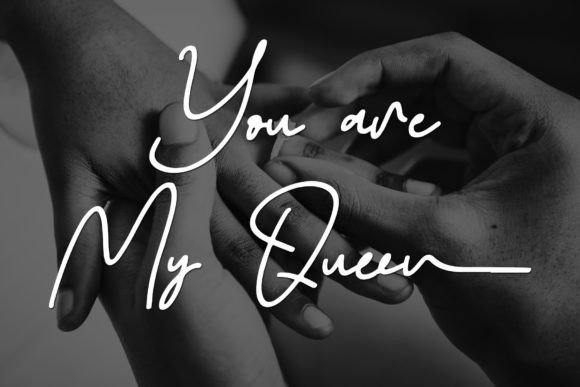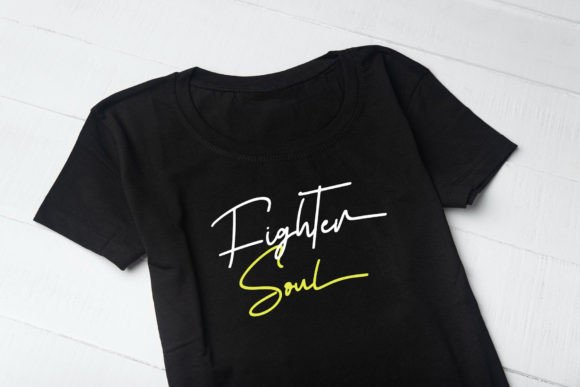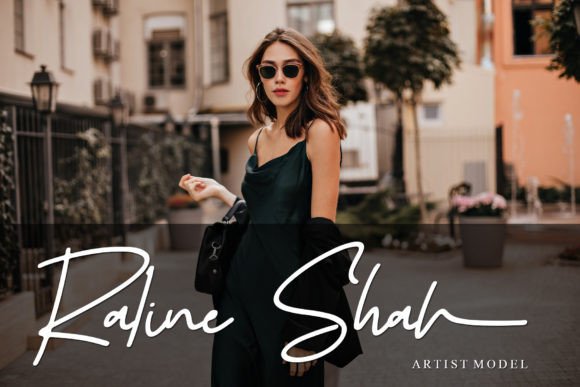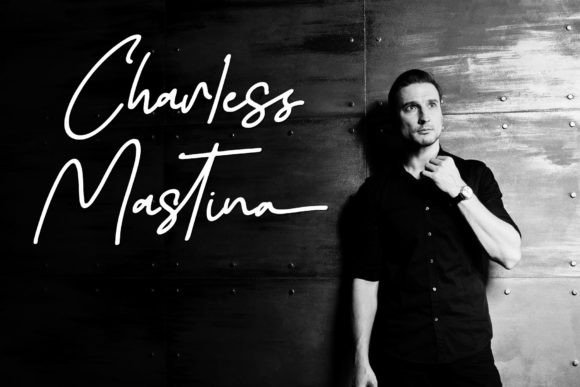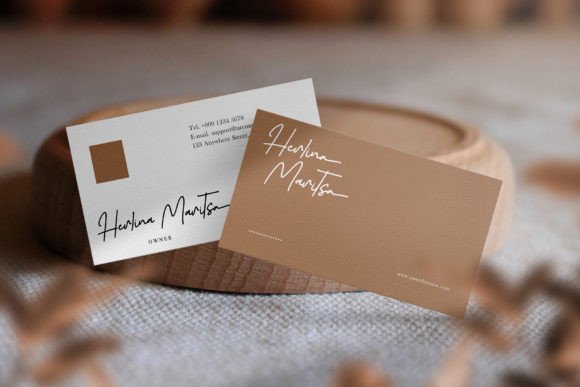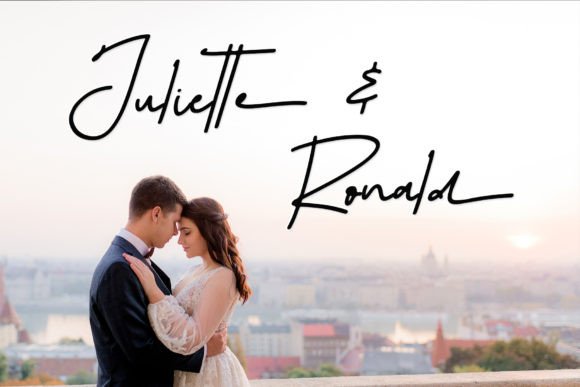
Introducing Alvero Signature Font: Elevate Your Designs with Elegance and Whimsy
In the world of typography, a signature font can make all the difference in creating a lasting impression. If you’re a designer, crafty DIY enthusiast, or simply someone who appreciates beautiful lettering, you’re in luck! Meet Alvero Signature Font, a charming and sophisticated handwritten font that’s perfect for a wide range of creative projects.
A Simple yet Quirky Signature Font
Alvero Signature Font boasts a simple, yet quirky design that exudes class and elegance. Its modern look and feel make it an excellent choice for various applications, from logos and branding to invitations, stationery, and wedding designs. The font’s unique character is sure to capture the attention of your audience and leave a lasting impression.
One of the best things about Alvero Signature Font is its versatility. You can use it to create a wide range of designs, including:
- Invitations and stationery
- Wedding designs and decorations
- And much more!
Why Choose Alvero Signature Font?
So, what sets Alvero Signature Font apart from other signature fonts? Here are just a few reasons why designers and crafters love this font:
- Elegant and modern design: Alvero Signature Font boasts a sophisticated and contemporary look that’s perfect for a wide range of designs.
- Quirky and playful: This font’s unique character adds a touch of whimsy to any design, making it perfect for creative projects.
- Versatile: Alvero Signature Font is suitable for a wide range of applications, from logos and branding to invitations and social media posts.
If you’re looking for a signature font that will take your designs to the next level, look no further than Alvero Signature Font. With its elegant and modern design, quirky character, and PUA encoding, this font is perfect for designers, crafters, and anyone who appreciates beautiful typography.